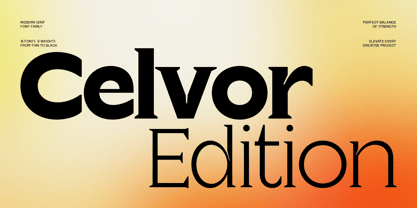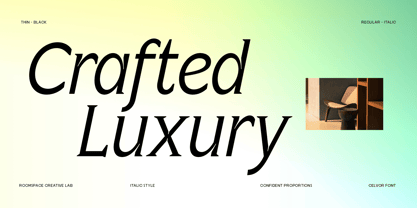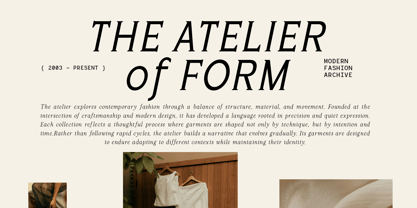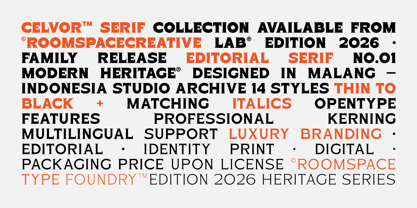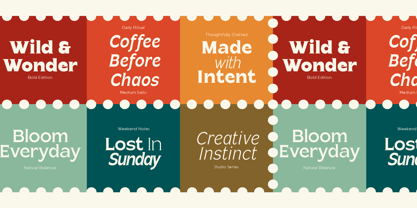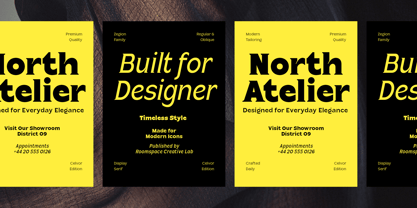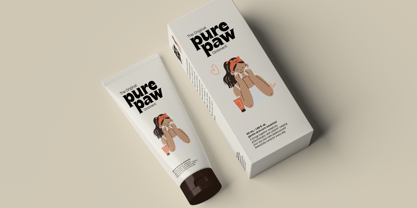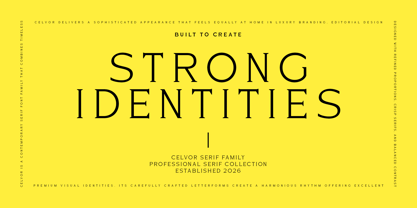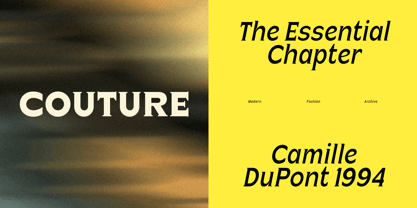
Celvor Edition
La familia tipográfica Celvor Edition fue diseñada por Bakhrudin Ja'far y publicada por Jafar07. Celvor Edition contiene 18 estilos y opciones de paquete familiar. Más información sobre esta familia
Celvor Editor is a premium contemporary serif font family crafted for designers who appreciate timeless sophistication with modern precision.
Featuring 18 carefully balanced styles ranging from Thin to Black with matching italics, Celvor provides exceptional flexibility across editorial layouts, luxury branding, fashion campaigns, packaging systems, visual identities, magazines, books, websites, and premium print design.
Every character has been refined with optical balance, elegant proportions, and confident contrast, creating typography that feels both expressive and highly functional.
Whether you're designing a boutique fashion label, cosmetic packaging, premium restaurant identity, architectural branding, magazine headline, or elegant website, Celvor delivers clarity, sophistication, and visual authority.
The family includes extensive OpenType features, multilingual language support, professional kerning, and a complete weight system that adapts effortlessly to both display and text applications.
If you're looking for a serif that bridges classic editorial beauty with contemporary branding, Celvor Editor was designed for exactly that purpose.